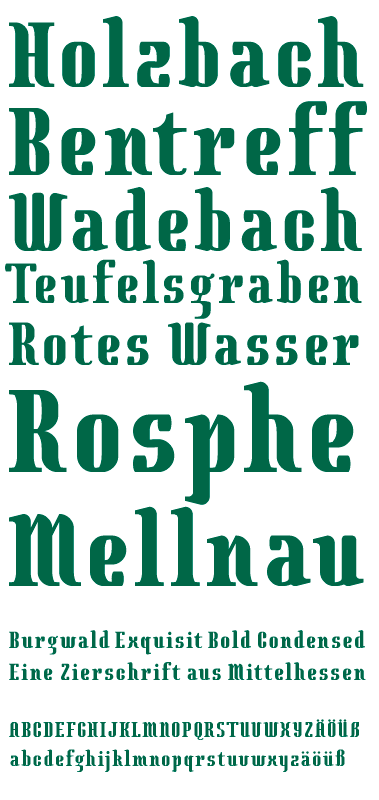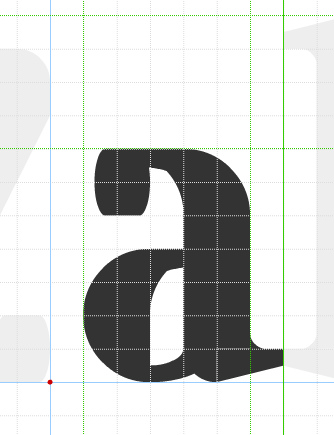
Sehr schön!
Jedoch ist das Kerning noch nicht ganz ausgeglichen. Manche Glyphen sehen aus wie Ligaturen (df, qu, ki, wn, xn), bei anderen finde ich den Abstand zu groß (b,r oder p bsw.)
A solid design - well worth getting that pesky kerning sorted. 10/10
Awesome work, I am really loving this one! And yes, kerning is a real pain in the butt, but how cares about kerning when you have a font this high-quality? 10/10+fav
A lovely font, it looks like it came from history; 10/10+fav
Beautiful piece of work!
About kerning:
As you can see in the screenshot, I left a gap of one brick left and right of almost every character. In order to avoid two characters to stick together—we're not in the comp after all—I set the spacing to 0.3. I know that in the alphabetical order the kerning looks rubbish. But Adobe products fix a lot of things in this case if you set kerning to optical.
So, from my point of view it's either high brick count and faux curves or low brick count and terrible kerning.
Sorry, but I have not thought of a competition. I meant that the text looks a bit restless. That's all ; ) peace.
Sorry, and I meant the Connected Script competition, what with characters touching each other and all. No harm done... ;-)
And yes, you are absolutely right. The text looks a bit all over the place. Maybe the following is better. I did it with PS and kerning set to optical and spacing set to -50.
How I envy this kind of fonts!... (and its designers). Congrats.
(Kerning apart).